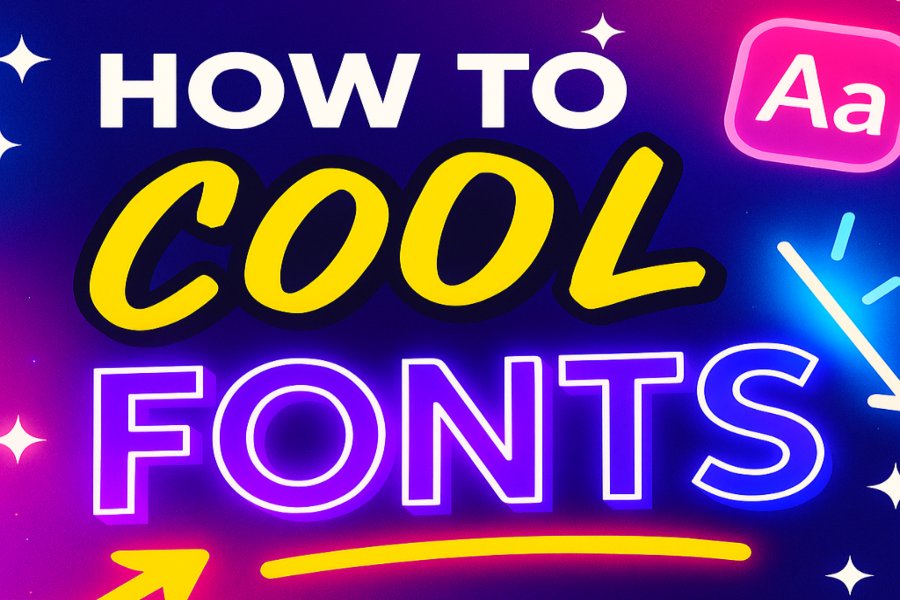
Typography is a powerful tool for enhancing the visual appeal of your projects, whether you’re designing a website, creating a presentation, or crafting a social media post. Cool fonts can make your content stand out, convey personality, and engage your audience. In this comprehensive guide, we’ll explore how to get cool fonts, from finding them to implementing them effectively across various platforms. Let’s dive into the world of typography and discover how to elevate your designs with stylish fonts.
Why Cool Fonts Matter
Fonts are more than just letters on a screen or page—they’re a reflection of style, tone, and intent. A well-chosen font can transform a mundane design into something eye-catching and memorable. Here’s why learning how to get cool fonts is worth your time:
Enhancing Visual Appeal
Cool fonts add flair to your projects. Whether it’s a bold, futuristic typeface for a tech startup or a whimsical script for a wedding invitation, the right font sets the mood and grabs attention.
Communicating Brand Identity
Fonts play a critical role in branding. A unique font can make your brand instantly recognizable, helping you stand out in a crowded market. For example, think of Coca-Cola’s iconic script logo or Google’s clean, minimalist typeface.
Improving User Experience
Readable and aesthetically pleasing fonts enhance user experience, whether on a website, app, or printed material. Cool fonts, when used correctly, balance style with functionality to keep your audience engaged.
Where to Find Cool Fonts
The first step in how to get cool fonts is knowing where to find them. There are countless resources online, both free and paid, offering a vast array of typefaces. Below are some of the best places to discover cool fonts for your projects.
Free Font Websites
Free font websites are a great starting point for finding cool fonts without breaking the bank. Here are some popular platforms:
- Google Fonts: A massive library of free, open-source fonts that are easy to download and use for both personal and commercial projects. Google Fonts offers a wide variety of styles, from modern sans-serifs to playful display fonts.
- DaFont: Known for its extensive collection of creative and unique fonts, DaFont is a go-to for designers looking for something quirky or artistic. Be sure to check the licensing for commercial use.
- FontSquirrel: This site offers high-quality, free fonts that are often licensed for commercial use. It also includes a handy font identifier tool to match fonts you’ve seen elsewhere.
- 1001 Fonts: A user-friendly platform with thousands of free fonts, ranging from retro to futuristic. It’s perfect for finding cool fonts for posters, logos, or social media graphics.
Premium Font Marketplaces
If you’re willing to invest in premium fonts, these platforms offer professionally designed typefaces with unique flair:
- MyFonts: A leading marketplace for premium fonts, MyFonts offers a vast selection from top foundries like Monotype and FontFont. You can find everything from elegant serifs to bold display fonts.
- Creative Market: This platform features fonts created by independent designers, making it ideal for finding unique, trendy typefaces. Creative Market often runs sales, so keep an eye out for deals.
- Adobe Fonts: Included with an Adobe Creative Cloud subscription, Adobe Fonts provides access to thousands of high-quality fonts from renowned foundries. It’s a great option for professional designers.
- FontShop: Another premium font marketplace, FontShop offers a curated selection of cool fonts, including exclusive typefaces from top designers.
Font Foundries and Independent Designers
For truly unique fonts, consider purchasing directly from font foundries or independent designers. Foundries like House Industries, Emigre, and P22 create bespoke fonts with distinct personalities. You can also find cool fonts on platforms like Etsy, where independent creators sell their designs.
Social Media and Design Communities
Social media platforms like Instagram, Pinterest, and Behance are treasure troves for discovering cool fonts. Search hashtags like #typography, #fontdesign, or #coolfonts to find inspiration and links to font sources. Design communities like Dribbble also showcase font pairings and downloadable typefaces.
How to Choose the Right Cool Fonts
With so many options available, selecting the perfect font can be overwhelming. Here are some tips to guide you in how to get cool fonts that suit your project:
Consider Your Project’s Purpose
The font you choose should align with the tone and purpose of your project. For example:
- Professional Projects: Opt for clean, legible fonts like sans-serifs (e.g., Roboto, Open Sans) for business documents or websites.
- Creative Projects: Experiment with bold, decorative fonts like brush scripts or retro typefaces for posters, album covers, or social media graphics.
Conclusion
Learning how to get cool fonts opens up a world of creative possibilities. By exploring free and premium font resources, choosing typefaces that align with your project’s goals, and implementing them thoughtfully, you can elevate your designs to new heights. Whether you’re a designer, developer, or hobbyist, cool fonts are a powerful way to express your creativity and make a lasting impression. Start experimenting with fonts today, and watch your projects come to life with style and personality.